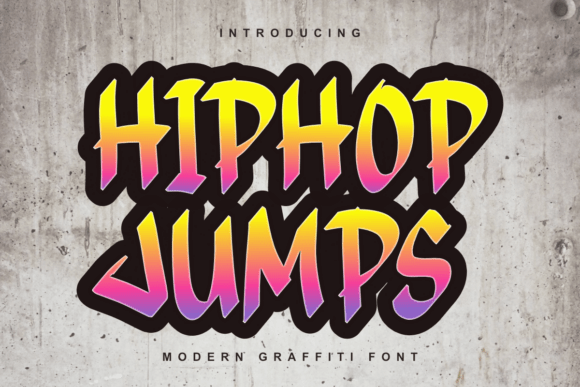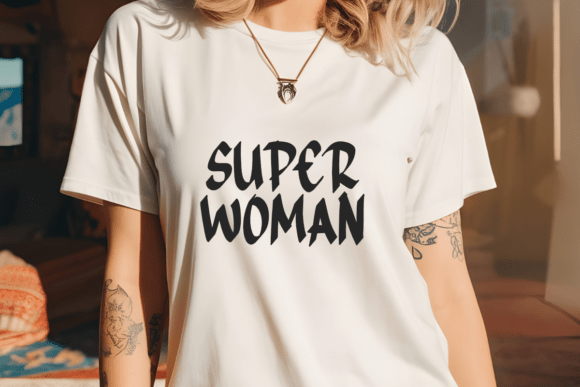
Hiphop Jumps Font
HipHop Jumps is a modern graffiti font with a clean yet bold aesthetic, perfect for adding an urban edge to your craft projects, branding, business logos, Etsy shops, and more. This font blends street style with a sleek, minimalist touch, making it ideal for stickers, posters, T-shirts, digital prints, and creative logos. Whether you’re designing for urban fashion, music events, or edgy DIY crafts, HipHop Jumps delivers a fresh and energetic look